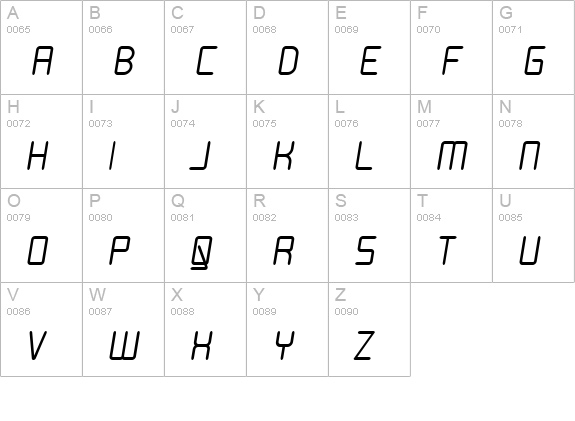
Moondog Thirty Italic Font Details
Moondog Thirty Italic is a distinctive, italic variant in the Moondog typeface family \xE2\x80\x94 well suited to design and typography projects.
Moondog Thirty Italic font is a unique and elegant typeface that exudes sophistication and style. With its sleek, slanted design, this font is perfect for adding a touch of modernity to any project. Its clean lines and graceful curves make it a versatile choice for a variety of design applications, from branding to editorial design. What sets Moondog Thirty Italic font apart is its sense of freedom and creativity. The italicized style adds a dynamic and energetic feel to your text, making it stand out and grab attention. Whether you're looking to add a touch of flair to a logo or create eye-catching headlines, this font is sure to make a statement. And the best part? Moondog Thirty Italic font is available for free download at FontsMarket.com. So you can easily access this stylish and contemporary font to elevate your design projects without breaking the bank. Don't miss out on the opportunity to enhance your work with the bold and expressive Moondog Thirty Italic font!